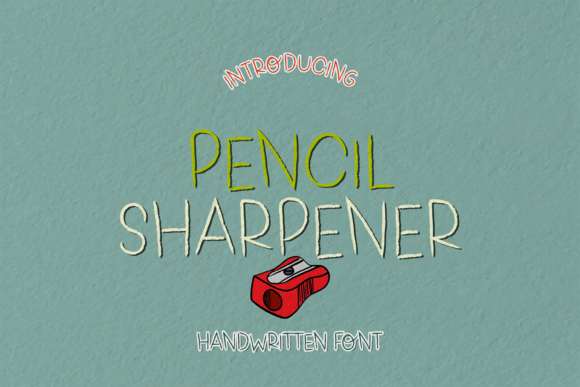
Journey into the world of Pencil Sharpener, a playful and effervescent script font that captures the carefree spirit of childhood. Inspired by the innocent charm of a child's handwriting, Pencil Sharpener dances across the page with a lively rhythm and a touch of whimsy. This delightful font family, crafted by the talented WADLEN, is a perfect choice for designers seeking to add a spark of youthful energy to their projects.
Step into a world where imagination runs wild and creativity flourishes. With Pencil Sharpener, ordinary designs transform into extraordinary expressions of joy and wonder. Embrace its playful nature and let your designs take on a life of their own. From whimsical logos to captivating social media posts, Pencil Sharpener adds a touch of magic to every project it graces.
Unleash your inner child and let the free-spirited charm of Pencil Sharpener captivate your audience. Its playful curves and cheerful strokes evoke a sense of nostalgia, reminding us of the days when life was simpler, and laughter was abundant. Whether you're designing for children's products, playful branding, or simply seeking to add a touch of whimsy to your work, Pencil Sharpener is the perfect companion.
With its effortless versatility, Pencil Sharpener effortlessly adapts to a myriad of design styles. Its handwritten charm shines through in logos and branding, while its playful spirit adds a touch of whimsy to invitations and greetings cards. Unleash your creativity and explore the endless possibilities that Pencil Sharpener presents.
Experience the joy of creating with Pencil Sharpener, a font that ignites imagination and sparks creativity. Let its youthful energy infuse your designs with a sense of wonder and delight. Embrace the magic of Pencil Sharpener and embark on a journey of artistic expression that will leave your audience spellbound.